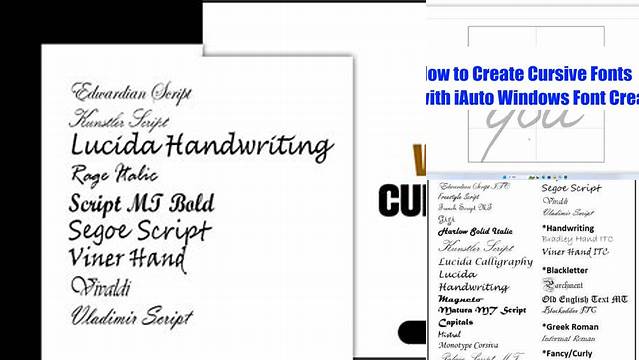
Mastering Cursive Fonts On Windows 10
Why Cursive Fonts Are Making a Comeback
Hey guys, ever notice how sometimes a simple text can feel a bit… meh? Well, the way we present our words plays a massive role in how they're perceived. And lately, there's been a huge surge in appreciation for cursive fonts. They're not just for fancy wedding invitations anymore! Cursive fonts bring a touch of elegance, personality, and a certain je ne sais quoi to everything from digital notes to graphic design projects. Think about it – a handwritten note has a warmth and intimacy that blocky, sans-serif fonts often lack. This trend isn't just about nostalgia; it's about reconnecting with a more human, artistic way of communicating. In the digital age, where everything can feel a bit sterile and uniform, a well-chosen cursive font can make your content stand out, feel more personal, and grab attention. It’s like giving your words a stylish outfit! Whether you're a student looking to jazz up your study notes, a blogger aiming for a more personal brand voice, or a designer searching for that perfect script to complete a project, understanding how to effectively use and manage cursive fonts on your Windows 10 machine is key. We're diving deep into the world of these beautiful letterforms, exploring why they're so popular, how to find and install them, and even some tips on using them like a pro. So, get ready to elevate your typography game, because cursive is officially cool again, and Windows 10 makes it easier than ever to harness its charm.
Understanding the Appeal of Script Fonts
So, what's the big deal with script fonts, or as most people call them, cursive fonts? It all boils down to visual storytelling and emotional connection. Unlike the straightforwardness of serif or sans-serif fonts, script fonts mimic the fluid, connected strokes of handwriting. This inherent connection makes them feel more personal, intimate, and often, more artistic. They can evoke a sense of tradition, elegance, and sophistication. Imagine receiving a birthday card with a beautifully rendered script greeting versus a standard block font; the script instantly adds a layer of care and thoughtfulness, doesn't it? This emotional resonance is a major reason why they're experiencing such a resurgence. In marketing, a cursive font can lend an air of luxury or artisanal quality to a brand. For personal use, like journaling or creating custom stationery, they add a unique, handcrafted feel. The perceived effort and artistic flair involved in script typography can make your message feel more valued and memorable. It’s the difference between a quick text message and a carefully penned letter. Guys, this is the power of visual language! We're not just reading words; we're experiencing their style. Whether it’s a flowing, elegant script reminiscent of calligraphy or a more casual, playful handwriting style, each cursive font carries its own personality. They can convey warmth, playfulness, romance, formality, and so much more, all through the shape and flow of their letters. Understanding this appeal is the first step to using them effectively and making your digital communications truly shine. It’s all about adding that human touch in a digital world.
Using Cursive Fonts Effectively in Documents
So, you’ve installed a bunch of gorgeous cursive fonts. Now what? The key is to use them wisely. Cursive fonts are fantastic for adding flair, but overdoing it can make your documents look cluttered or, worse, unreadable. Think of them as the sparkling accent in your design, not the main feature. For headings and titles, cursive fonts can be absolutely stunning. They immediately draw the eye and set a tone – whether it's formal, whimsical, or romantic. Just make sure the heading is large enough for the details of the script to be appreciated and for it to remain legible. For short phrases or emphasis, a script font can highlight a key quote or a call to action effectively. Imagine a beautiful script font used for the word 'Sale!' or a memorable tagline. However, avoid using most cursive fonts for body text, guys. Generally, they are much harder to read in long paragraphs compared to standard serif or sans-serif fonts. Continuous reading in a highly stylized script can cause eye strain and frustration for your readers. If you absolutely must use a script for longer text, opt for a very simple, clean script font with good spacing and clear letterforms, and ensure it’s rendered at a decent size. Pairing fonts is also crucial. Combine your chosen cursive font with a clean, readable font (like Arial, Calibri, or Open Sans) for your main text. The contrast helps the script font stand out while ensuring the rest of your content is easily digestible. A good rule of thumb: let the cursive font be the star of a specific element, not the entire show. This balance ensures your document looks stylish and professional, not chaotic. Experiment with different pairings and see what works best for your message!
Cursive Fonts for Graphic Design Projects
Graphic designers, listen up! Cursive fonts are your secret weapon for adding personality and a human touch to your designs on Windows 10. They can transform a flat design into something with depth and emotion. Logos and branding are prime territory for script fonts. Think of brands that want to convey elegance, luxury, or a handcrafted feel – a well-chosen cursive font can instantly communicate that message. A sophisticated script for a high-end fashion brand, a playful handwritten font for a local bakery, or a classic calligraphic style for a wedding planner; the font choice is fundamental. Invitations and stationery are, of course, classic uses. Wedding invites, baby shower cards, holiday greetings – script fonts lend an air of celebration and personal connection that's hard to beat. For social media graphics, a striking cursive font can make your posts pop. Use it for quotes, promotional text, or event announcements to grab attention in a busy feed. Remember to consider the legibility on smaller screens. While fancy scripts look great large, they can become illegible on a phone. Test your designs on different devices! Color and texture can also enhance script fonts. Sometimes overlaying a script font with a subtle texture or using a rich color can add even more impact. When selecting fonts for design, pay attention to the details: the swashes, the ligatures (connected letters), and the overall flow. These elements are what give cursive fonts their unique character. Guys, don't be afraid to experiment! Try combining a bold script with a simple sans-serif, or layer multiple scripts (carefully!) for a unique effect. Windows 10 makes managing and previewing these fonts a breeze, so go wild and let your creativity flow. Just always keep your target audience and the overall message of your design in mind.
Enhancing Digital Communication with Script Fonts
Let's talk about making your everyday digital conversations a bit more special, guys. Beyond formal documents and design projects, cursive fonts can subtly enhance your digital communication on Windows 10. Think about emails, personal messages, or even presentations. A well-placed script font can inject personality and warmth where it might otherwise be lacking. In professional emails, using a script font for your sign-off – perhaps your name or a short, friendly closing like 'Best,' – can add a personal touch that makes you seem more approachable. It’s a small detail, but it can make a difference. For personal messages or social media captions, script fonts are fantastic for conveying emotion. Use a flowing script for a romantic message, a bouncy script for a cheerful announcement, or a bold script for something you want to emphasize. Websites and blogs can also benefit. While body text should remain readable, using a beautiful cursive font for page titles, section headers, or pull quotes can significantly improve the aesthetic appeal and brand identity. Imagine a lifestyle blogger using elegant script for their blog's name or a baker using a charming handwritten font for their recipe titles. It creates a consistent and appealing visual experience. Windows 10 gives you the tools to easily incorporate these fonts into various applications. Don't underestimate the power of a visually appealing font to make your message more engaging and memorable. It's about adding that little bit of you to your digital footprint. So, next time you're typing something out, consider if a touch of cursive could elevate your message from ordinary to extraordinary. It’s a simple yet powerful way to make your communication stand out.
Troubleshooting Common Font Issues in Windows 10
Even with the best intentions, sometimes fonts can be a bit finicky on Windows 10. Don't sweat it, guys, these issues are usually pretty easy to fix! One common problem is a font not appearing in applications after installation. Double-check that you restarted the specific application (like Word or Photoshop) after installing the font. Sometimes, a full system restart is needed. Also, verify that the font was installed correctly by going to the Control Panel > Fonts folder. If you see it there, Windows recognizes it. Another issue is corrupted font files. If a font looks weird, has missing characters, or crashes your program, the download might have been incomplete or the file itself is damaged. Try downloading the font again from a reliable source. Font conflicts can also occur, especially if you have many similar fonts installed. Windows might prioritize one over the other. In this case, you might need to uninstall duplicate or problematic fonts via the Control Panel > Fonts. For unreadable or strangely spaced text, it could be that the font isn't designed for continuous use or the application isn't handling its kerning (letter spacing) well. Try a different script font or check the application's font settings. If you're trying to use a font online and it's not showing up for others, remember that they need to have the font installed on their system too, or you need to embed it using specific web design techniques. Guys, font management can sometimes feel like troubleshooting, but most problems are solvable with a bit of patience. Always keep backups of your favorite font files, and test new fonts in the application you intend to use them in before committing to a large project.
Exploring Different Styles of Cursive Fonts
Cursive isn't just one thing, guys! There's a whole spectrum of styles within the world of script fonts, and exploring them can really broaden your typographic toolkit on Windows 10. We've got the elegant and formal scripts, which mimic traditional calligraphy or copperplate handwriting. Think flowing lines, dramatic flourishes, and often, a one-way slant. These are perfect for formal invitations, high-end branding, or anything that needs a touch of classic sophistication. Then there are the casual or informal scripts. These often look like everyday handwriting – maybe a bit messy, perhaps more upright, and usually less ornate. They're great for a friendly, approachable vibe, like on a personal blog, a quirky greeting card, or a local business's marketing materials. Don't forget brush scripts, which have a dynamic, painterly feel. They often have varying stroke widths, giving them an energetic and artistic look, similar to what you'd achieve with a brush pen. These are super popular for modern branding and graphic design. We also see handwritten fonts, which are sometimes lumped with scripts but can be distinct. These might be individual letters that aren't always connected, or they might have a very distinct, unique personality that feels less like traditional cursive and more like a specific person's scribbles. Decorative or novelty scripts exist too, often with very exaggerated features or themed elements. Use these sparingly and for specific, fun projects! When choosing, consider the context. A formal script might look out of place on a playful children's party invitation, and a super casual script might not fit a luxury brand. Windows 10 allows you to preview all these styles easily, so take the time to browse and understand the nuances. Each style tells a different story, so pick the one that best fits the narrative you want to create.
Customizing Cursive Fonts in Windows 10
While Windows 10 comes with built-in font management, it doesn't offer deep customization options for individual fonts themselves, like altering stroke width or adjusting letter spacing directly within the OS. However, you can still do a lot to manage and utilize your cursive fonts effectively, which is a form of customization. Think about font pairing. The true customization comes when you combine a cursive font with other fonts. For example, pairing an elegant script for a heading with a clean sans-serif for body text is a stylistic choice that customizes the look of your entire document or design. Most applications like Microsoft Word, PowerPoint, or graphic design software like Adobe Photoshop and Illustrator allow for basic text adjustments. You can change the size, color, and sometimes even the tracking (overall letter spacing) and kerning (spacing between specific letter pairs) for installed fonts. For more advanced customization, like modifying the font's actual design (adding flourishes, changing weights), you'd need specialized font editing software like FontForge (free) or Adobe Illustrator with font plugins. This is more in the realm of font design than simple usage, guys. For most users on Windows 10, the